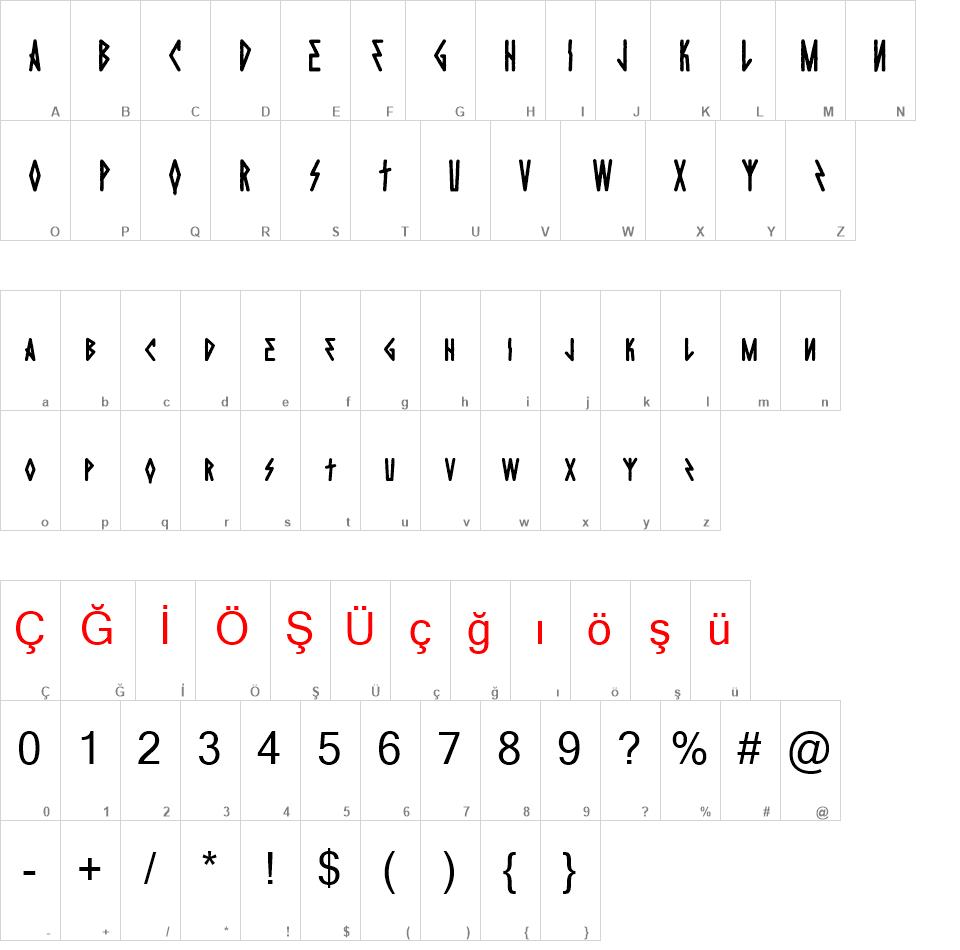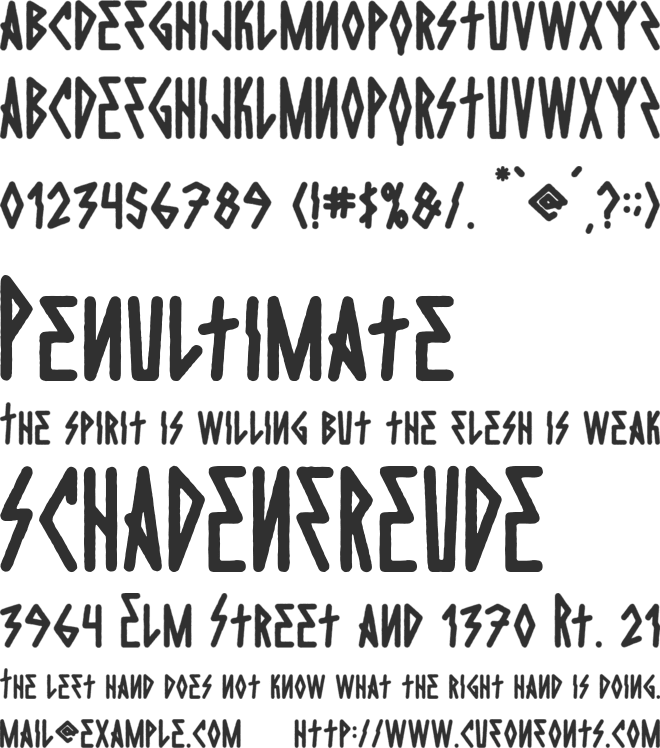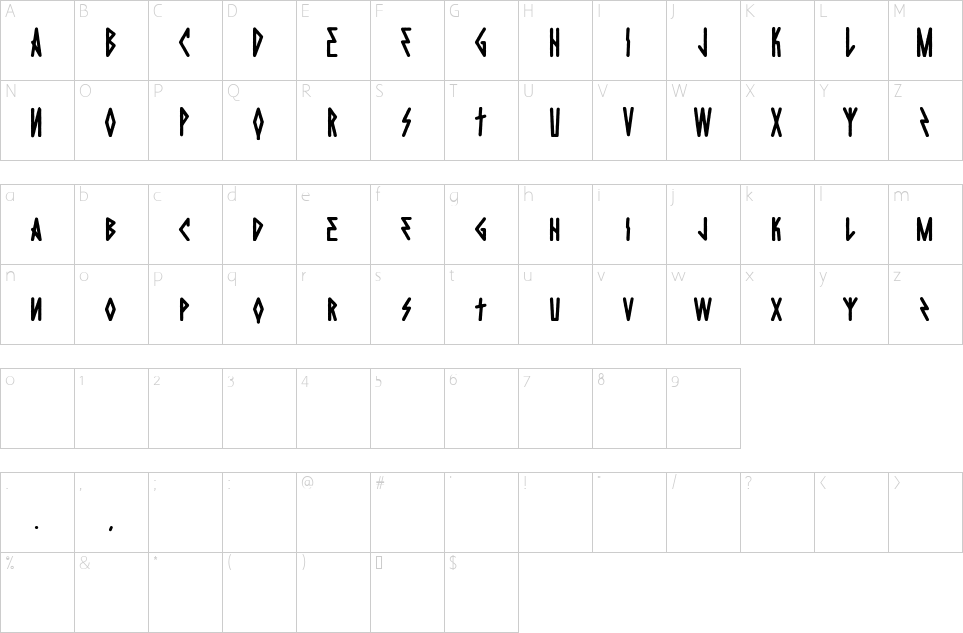
Die Hard Font
Die Hard Font - Web mar 13, 2011 at 23:18. Web a user posted a sample of a die hard poster with a white text on the left and a black text on the top. The time is now 00:34. Other users replied with the. Web die hard is a font family with three styles of vintage and old school style font with three alternative. It is designed by madededuk.
Other users replied with the. Web a user posted a sample of a die hard poster with a white text on the left and a black text on the top. It is designed by madededuk. Web die hard is a font family with three styles of vintage and old school style font with three alternative. The time is now 00:34. Web mar 13, 2011 at 23:18.
Web die hard is a font family with three styles of vintage and old school style font with three alternative. The time is now 00:34. It is designed by madededuk. Other users replied with the. Web a user posted a sample of a die hard poster with a white text on the left and a black text on the top. Web mar 13, 2011 at 23:18.
Die Hard Font madeDeduk FontSpace
Web die hard is a font family with three styles of vintage and old school style font with three alternative. It is designed by madededuk. Web mar 13, 2011 at 23:18. The time is now 00:34. Other users replied with the.
The time is now 00:34. Other users replied with the. Web die hard is a font family with three styles of vintage and old school style font with three alternative. It is designed by madededuk. Web mar 13, 2011 at 23:18.
Other users replied with the. Web a user posted a sample of a die hard poster with a white text on the left and a black text on the top. It is designed by madededuk. Web mar 13, 2011 at 23:18. Web die hard is a font family with three styles of vintage and old school style font with three.
Other users replied with the. Web die hard is a font family with three styles of vintage and old school style font with three alternative. The time is now 00:34. Web a user posted a sample of a die hard poster with a white text on the left and a black text on the top. It is designed by madededuk.
It is designed by madededuk. The time is now 00:34. Web mar 13, 2011 at 23:18. Web a user posted a sample of a die hard poster with a white text on the left and a black text on the top. Web die hard is a font family with three styles of vintage and old school style font with three.
Web die hard is a font family with three styles of vintage and old school style font with three alternative. The time is now 00:34. Web mar 13, 2011 at 23:18. It is designed by madededuk. Other users replied with the.
Die Hard Font madeDeduk FontSpace
Web mar 13, 2011 at 23:18. Web a user posted a sample of a die hard poster with a white text on the left and a black text on the top. The time is now 00:34. Web die hard is a font family with three styles of vintage and old school style font with three alternative. Other users replied with.
Die Hard Font madeDeduk FontSpace
Web die hard is a font family with three styles of vintage and old school style font with three alternative. The time is now 00:34. Web mar 13, 2011 at 23:18. Web a user posted a sample of a die hard poster with a white text on the left and a black text on the top. Other users replied with.
Die Hard Windows font free for Personal
Web a user posted a sample of a die hard poster with a white text on the left and a black text on the top. Other users replied with the. Web mar 13, 2011 at 23:18. Web die hard is a font family with three styles of vintage and old school style font with three alternative. It is designed by.
Die Hard Font Duo Free Design Resources
Other users replied with the. Web a user posted a sample of a die hard poster with a white text on the left and a black text on the top. Web mar 13, 2011 at 23:18. The time is now 00:34. Web die hard is a font family with three styles of vintage and old school style font with three.
Other users replied with the. It is designed by madededuk. Web die hard is a font family with three styles of vintage and old school style font with three alternative. Web a user posted a sample of a die hard poster with a white text on the left and a black text on the top.